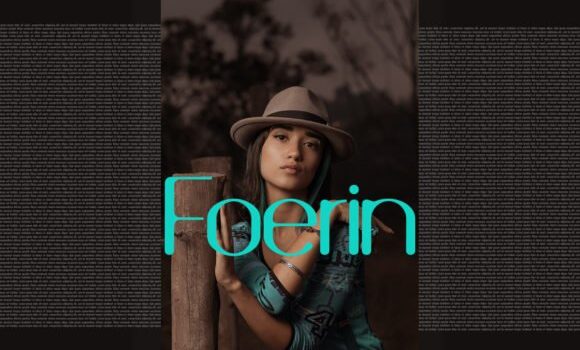
foerin
Foerin Typeface Font - Featured Image
Foerin Typeface Font – Free Download Introduction to Foerin Typeface Font Foerin is a modern display typeface, It can keep the minimalism at its level best and is a perfect choice for creative and classic typography designs. 📸 Preview Gallery